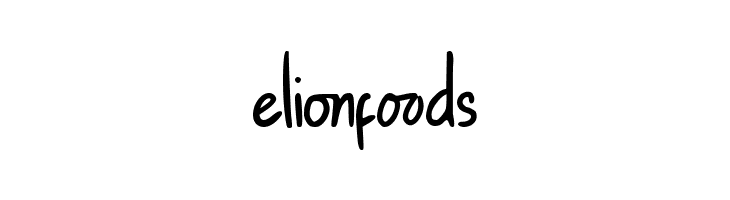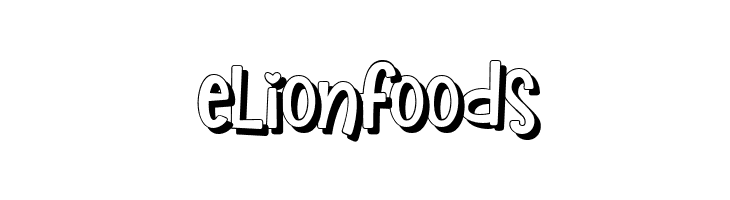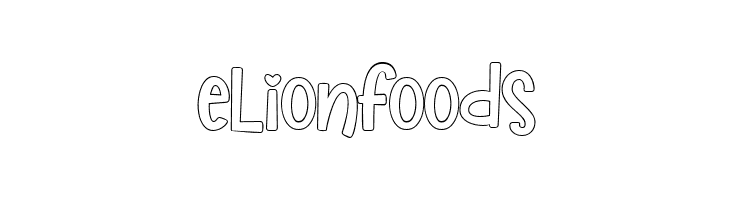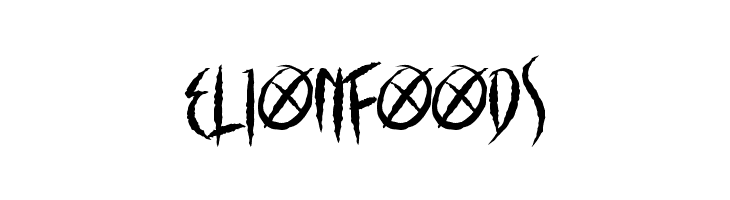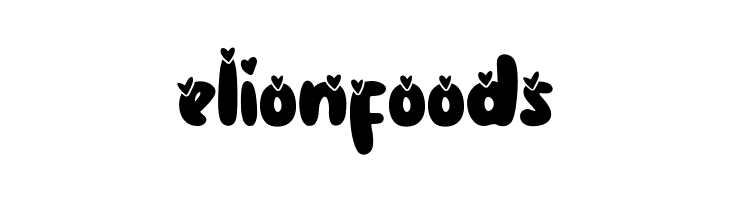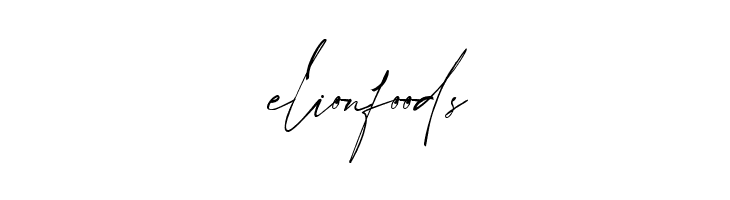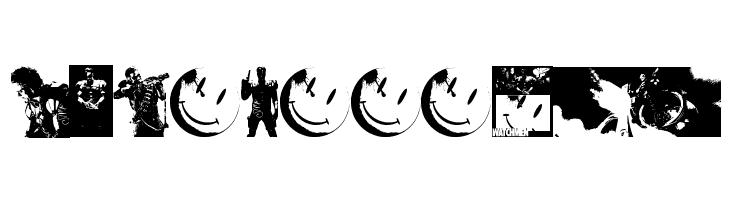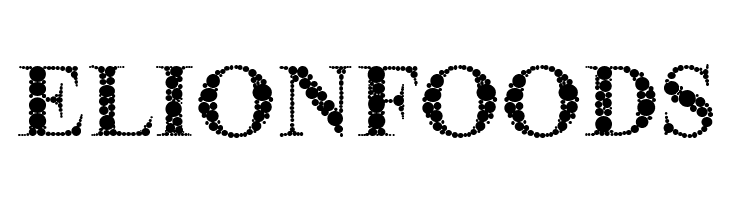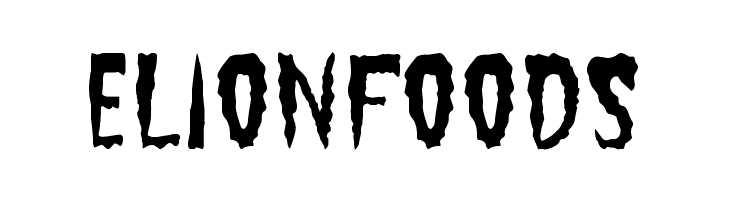
A bold, claw-like font with sharp, jagged edges for dramatic impact.
A casual, elegant handwritten font with fluid, connected letters.
A bold, heart-adorned decorative font with a playful and romantic style.
A playful, outlined font with a crafty, handmade feel.
A playful, hand-drawn font with a whimsical and casual style.
A playful, bold font with a distinctive shadow effect and cartoonish style.
A jagged, horror-inspired font with a distressed, edgy appearance.